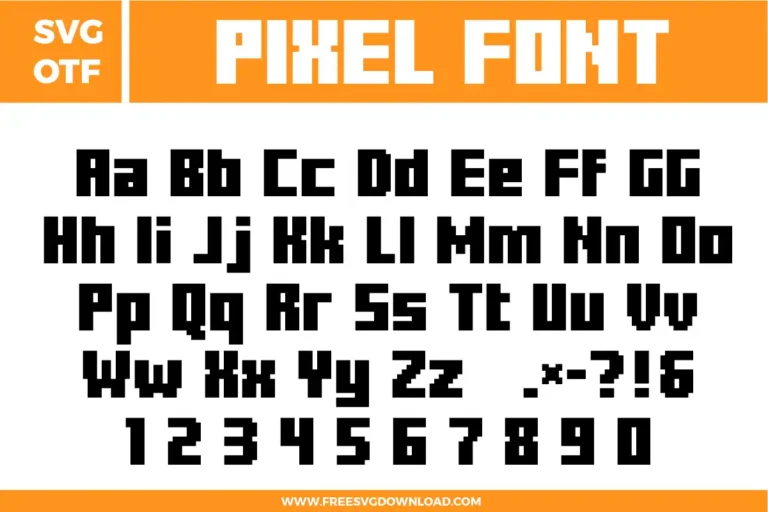
Pixel Font Free SVG File
A retro and blocky Pixel Font free svg files set. The design features a classic 8-bit aesthetic with thick, squared-off characters and geometric shapes. This OTF and SVG font bundle includes uppercase and lowercase alphabets, numbers 0-9, and essential punctuation marks in a bold black style perfect for gaming-themed crafts and digital designs.
• Pixel Font SVG: Full uppercase and lowercase alphabet set with matching numbers and punctuation, designed in a retro pixel-style typeface with square corners, blocky strokes, and evenly stepped character shapes.